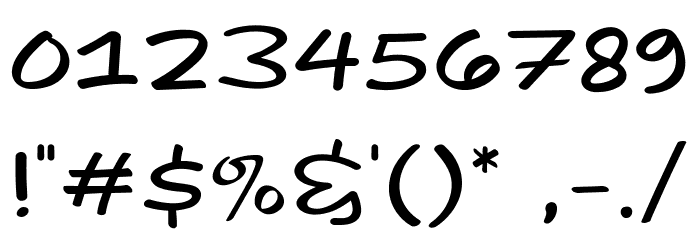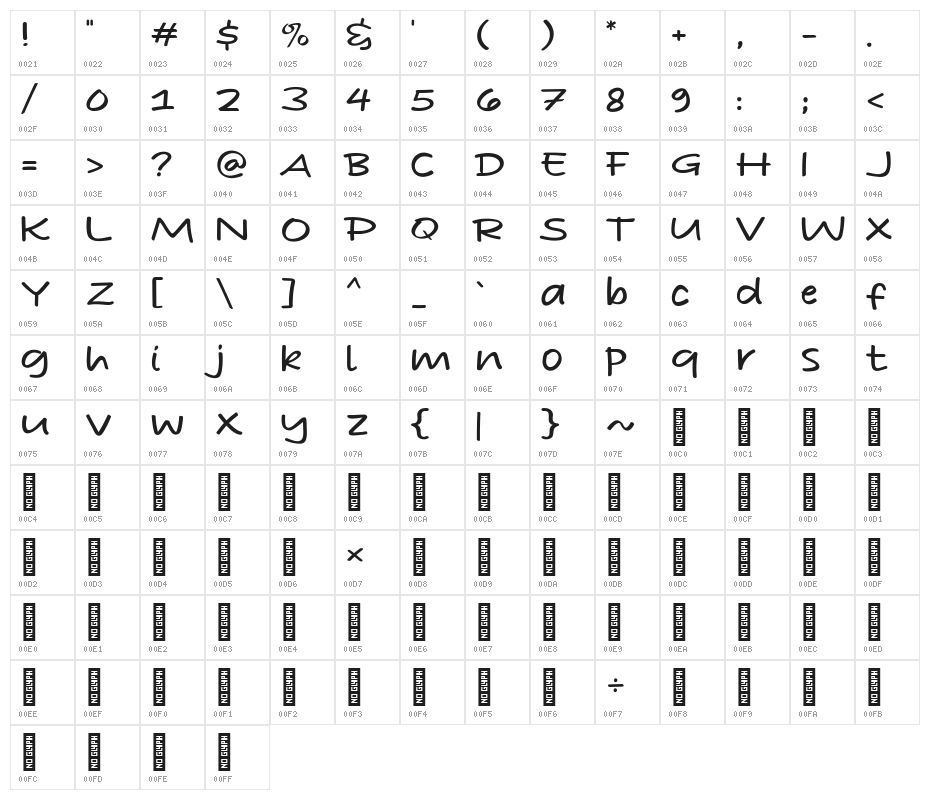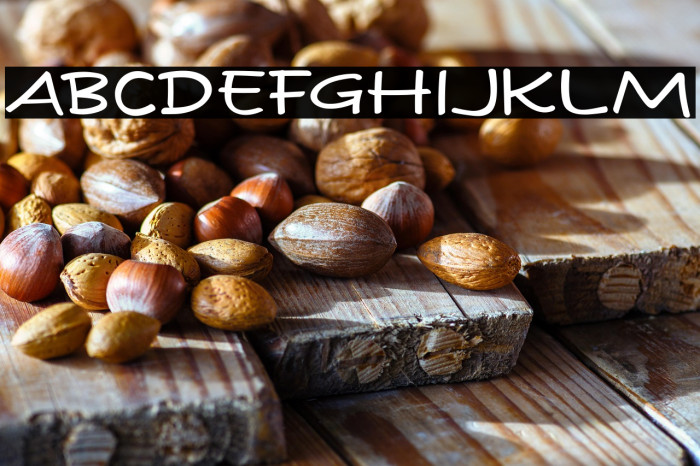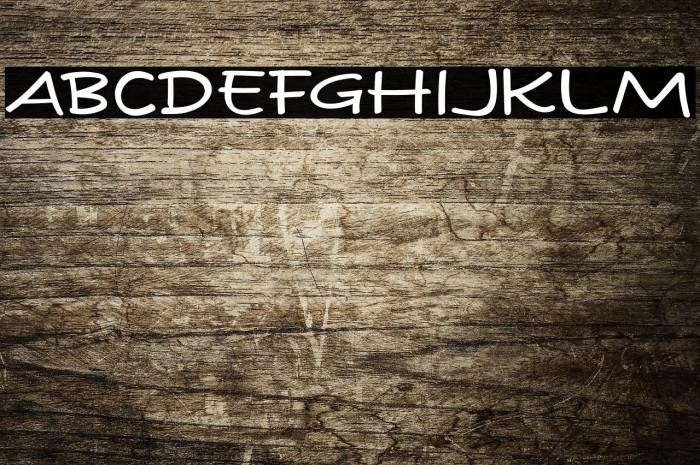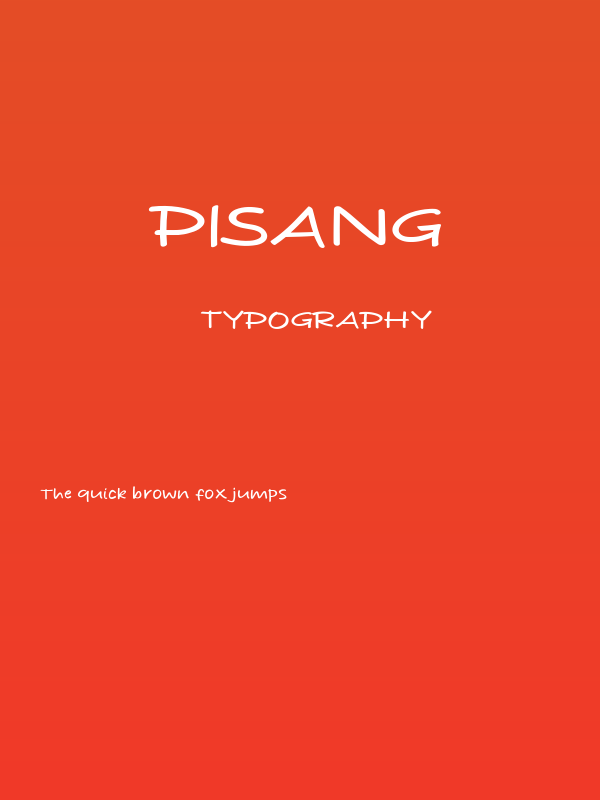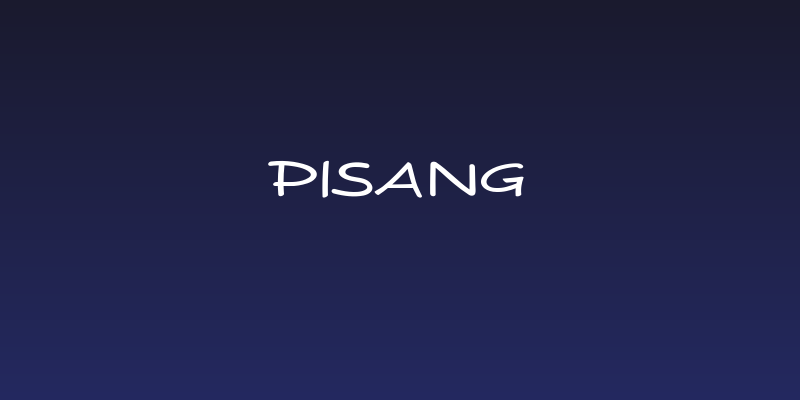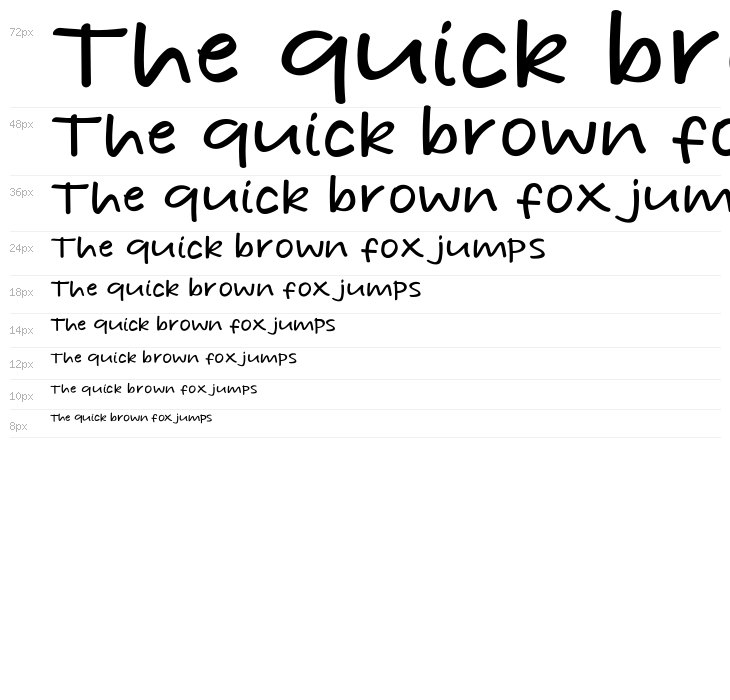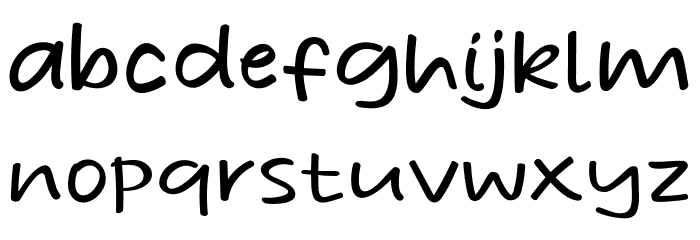
Pisang Font
Pisang Description
This playful and casual font features a handwritten style with smooth, rounded edges and a slightly irregular baseline, giving it a friendly and approachable appearance. The characters are well-spaced, ensuring readability while maintaining a relaxed feel. The uppercase and lowercase letters are distinct yet harmonious, with a consistent stroke width that adds to its legibility. The numerals and special characters are designed to match the overall style, making it versatile for various uses.
| Use Case | Headlines, Informal text, Branding |
| Proposed Projects | Ideal for children's books, greeting cards, casual branding, and social media graphics. |